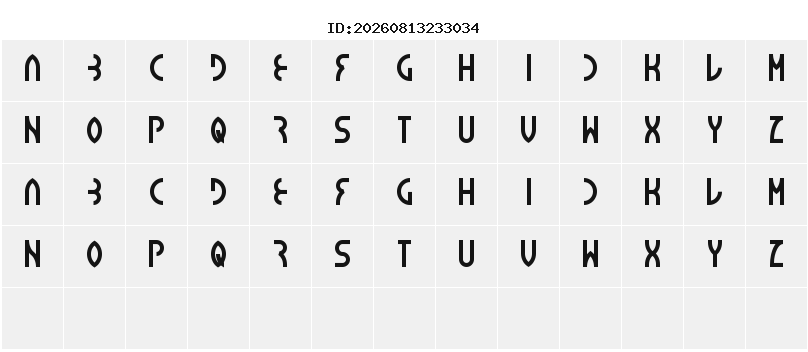
seba Preview
• Font Name: seba
• Font ID: seba:Version 1.00
• Full Font Name: seba
• Version: Version 1.00 September 29, 2011, initial release
• PostScript Name: seba
• Designer: 桴瑰㨯⽷睷⹤慦潮琮捯洯睩湯⵳⵫慤楲⹤㈲〹
• Manufacturer: 桴瑰㨯⽷睷⹤慦潮琮捯洯睩湯⵳⵫慤楲⹤㈲〹
About seba.ttf
seba.ttf is a modern, elegant sans-serif font designed for ultimate readability and visual harmony. Perfect for branding, headlines, web design, and print materials.